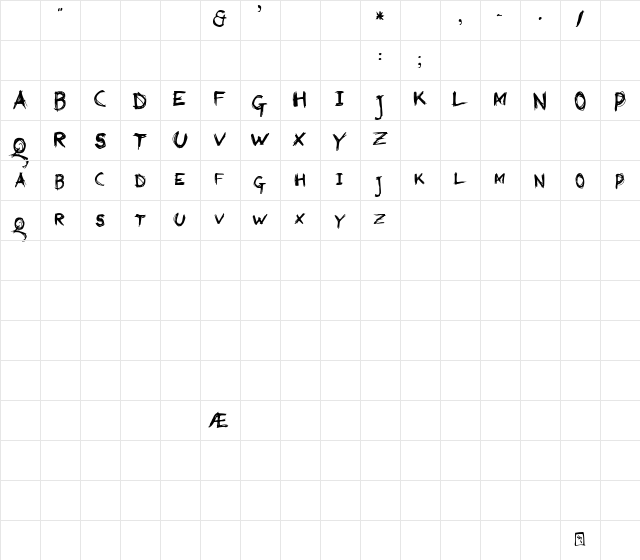
Red Pen Society Regular
Design Context for Red Pen Society Typeface
Red Pen Society is a composed and adaptable typeface that performs quietly and consistently across a wide range of design contexts.